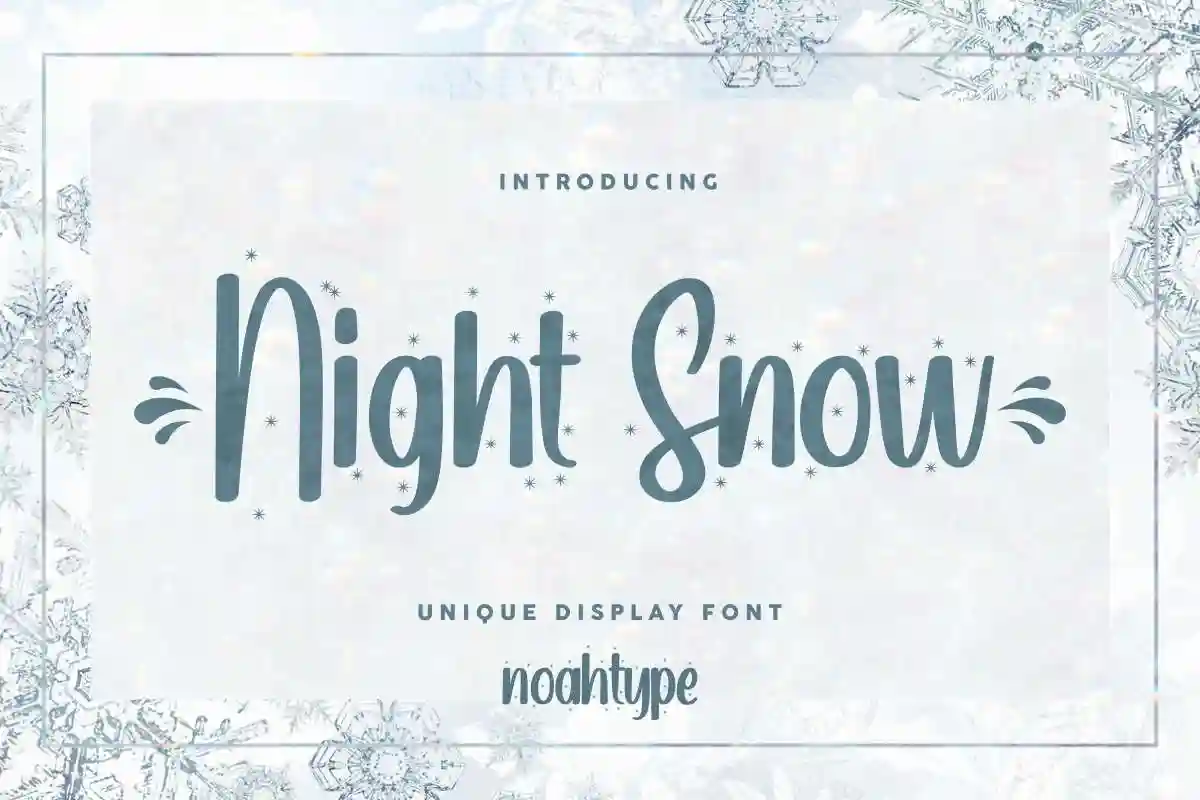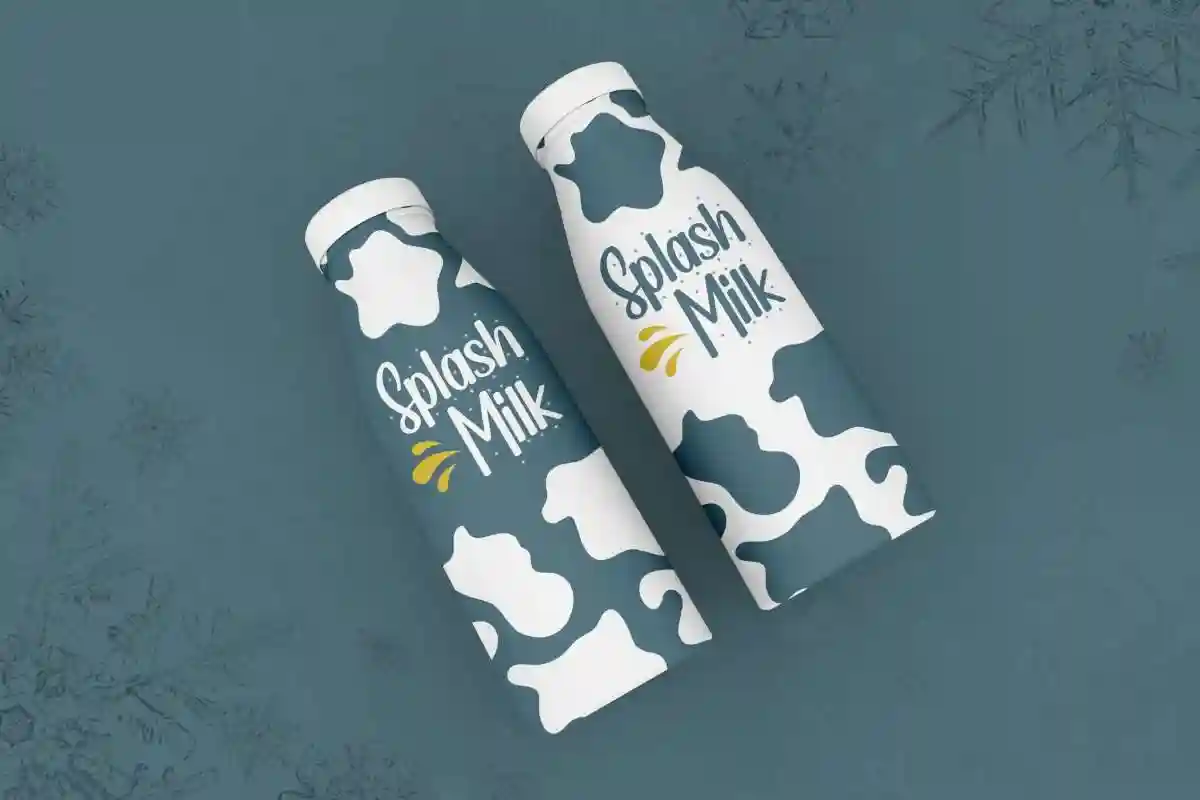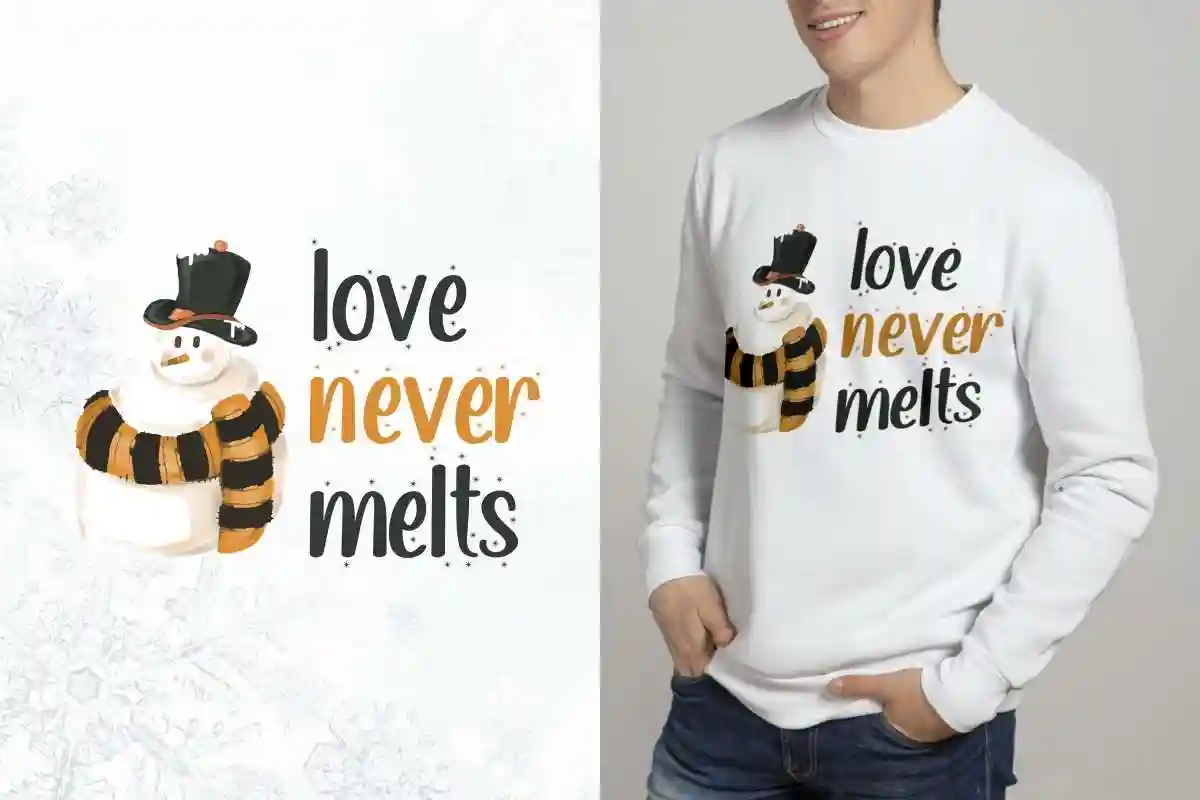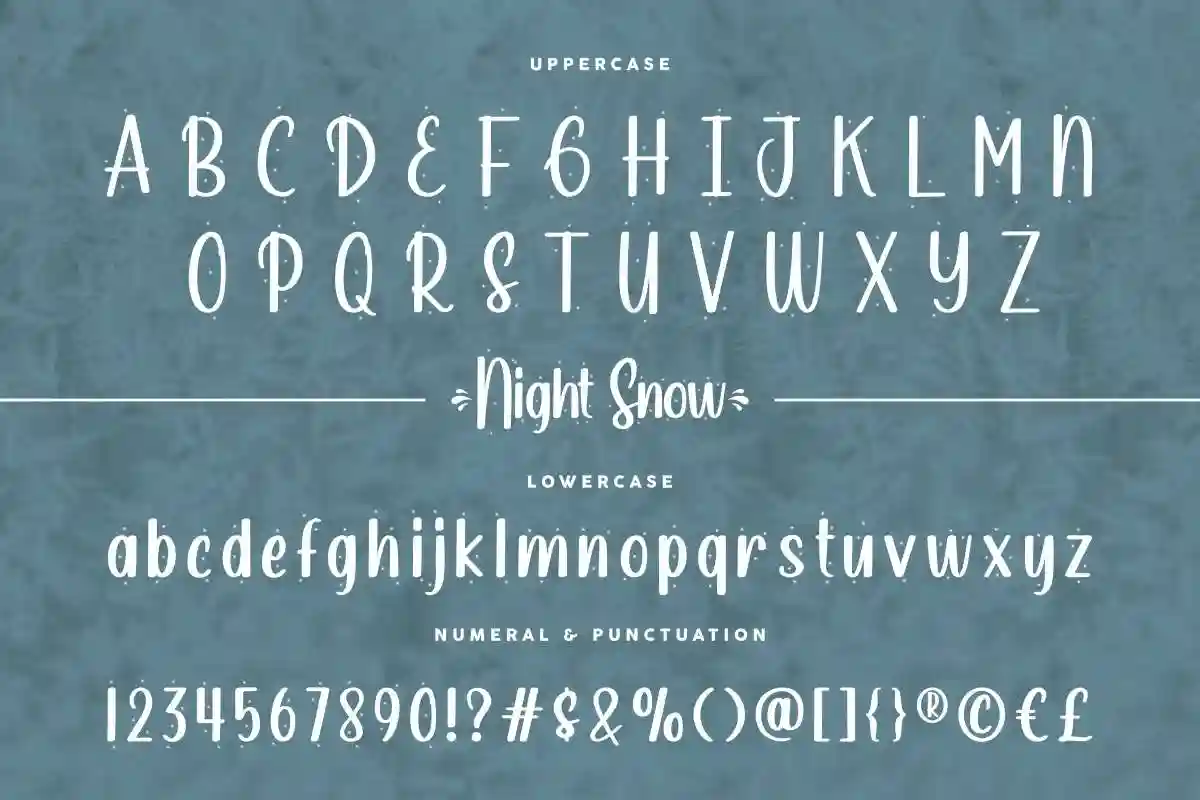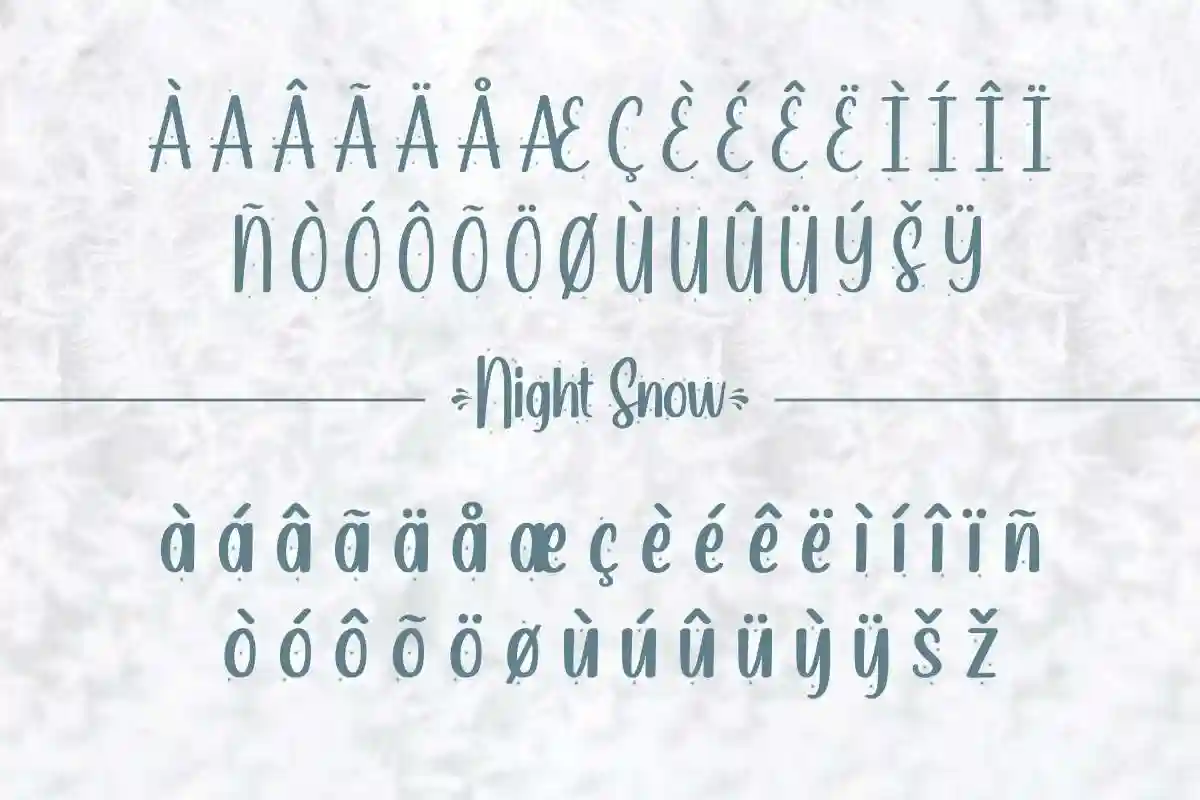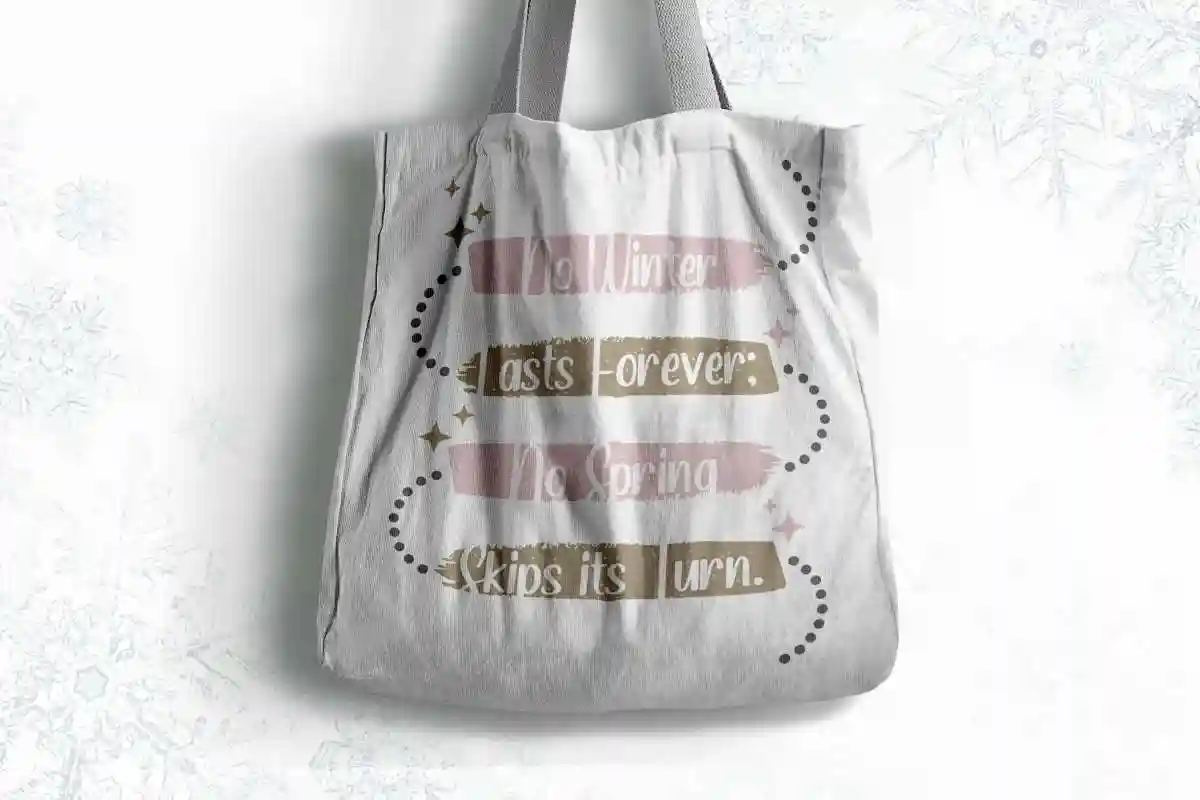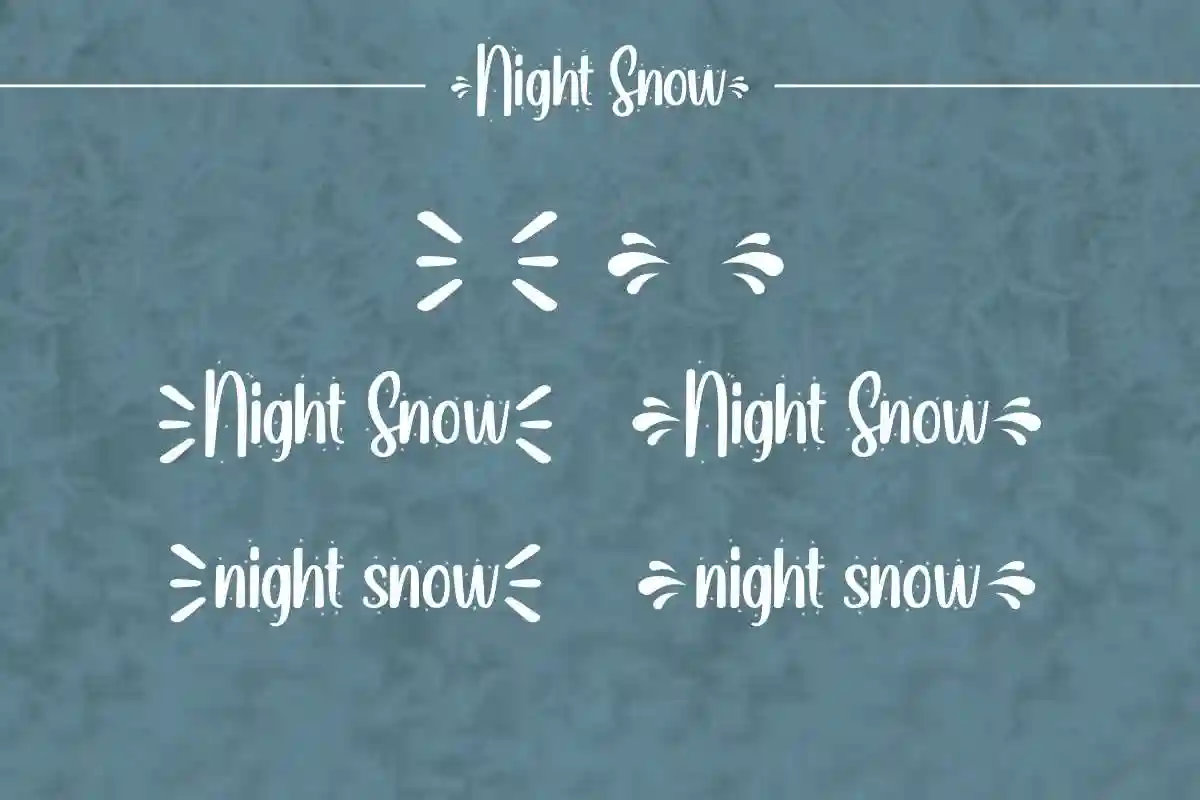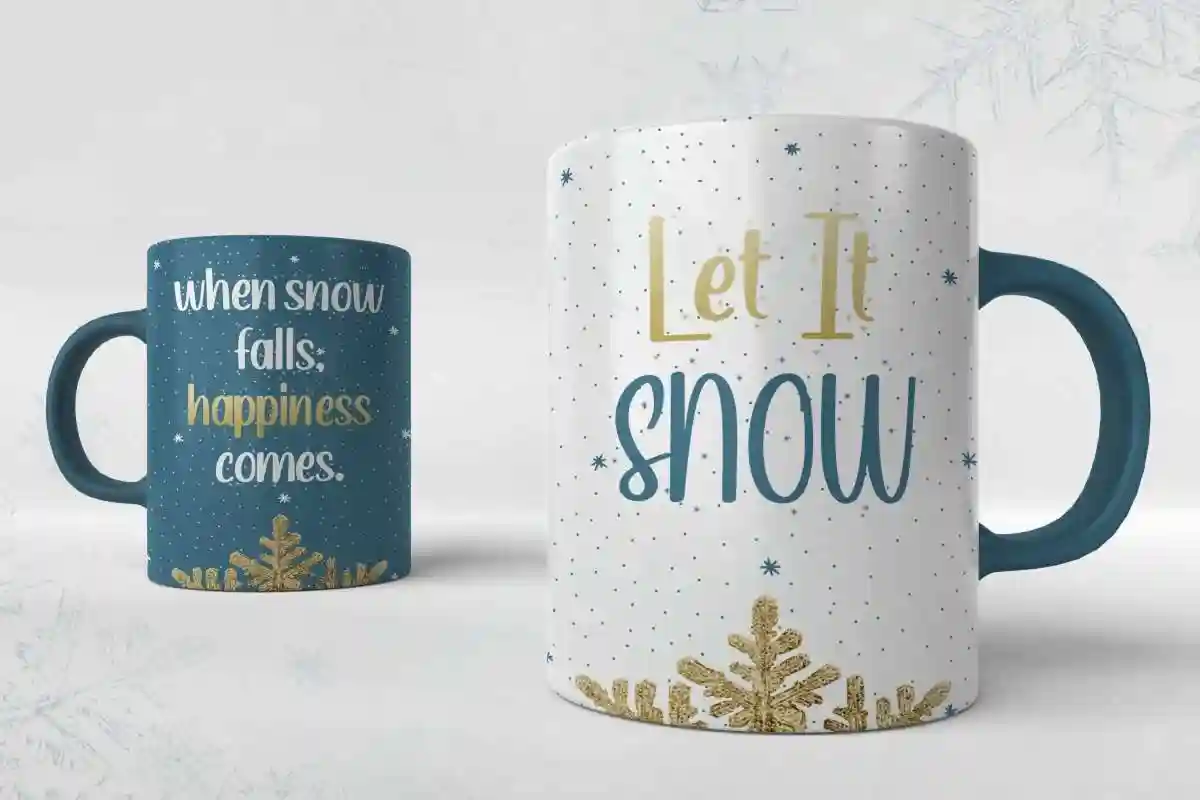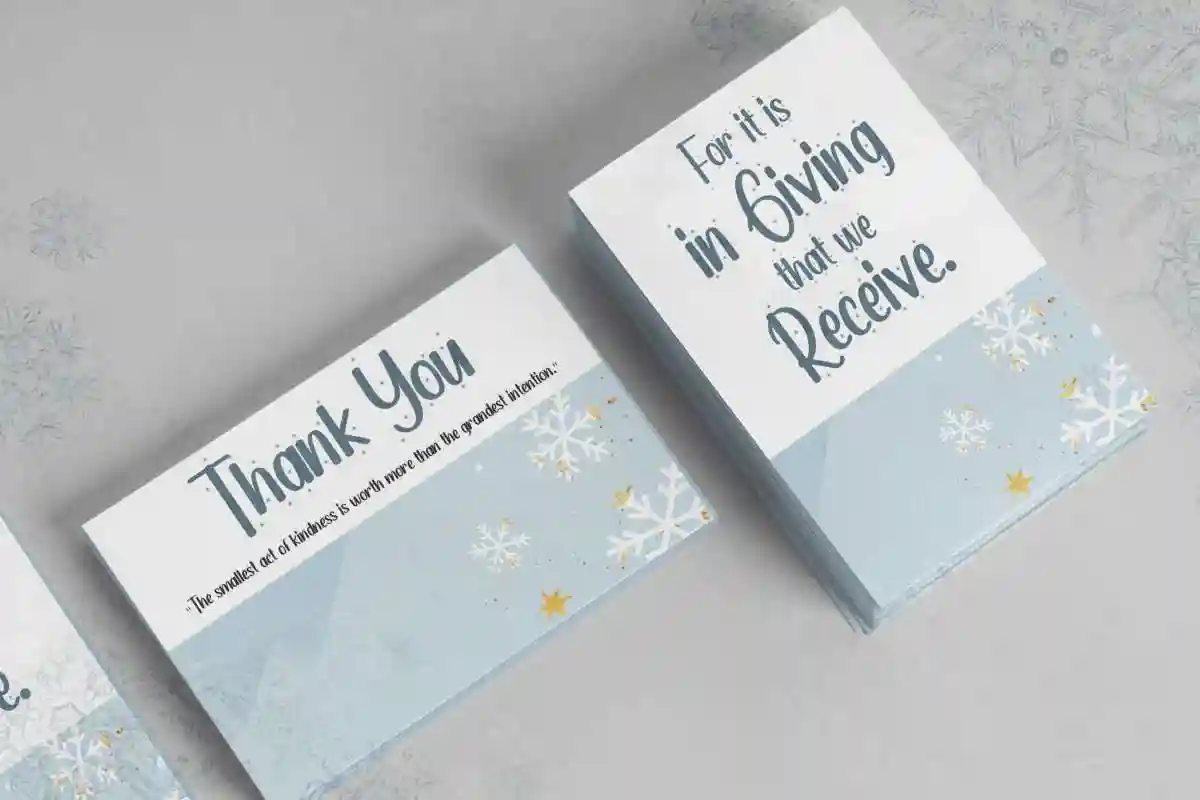
Night Snow Font is a display handwriting font with snow effect style. Night Snow Font comes with sparkling exclusive font looks. This font is crafted carefully in every its single line, created to look as close to a handwritten result so that it can create the perfect combination on each glyph. When we make this font, we really want to create a font that has winter and snow style. This awesome handwritten is for anyone who are needing of elegant and fun designs.
Night Snow Font includes a full set of Upper and Lowercase Basic Characters, Numbers and Punctuation to create the perfect natural handwritten look to perfect your extraordinary projects. This font has a unique letterform and swoosh, themed in snow
Night Snow Font will be awesome for book cover, clothing, invitations, kids, logo branding, school, products packaging, screen printing etc
Night Snow Font will be great for branding, lettering, logotype, poster, social media post, watermark and many more!